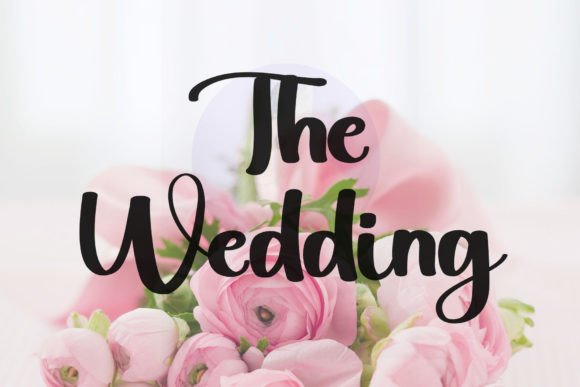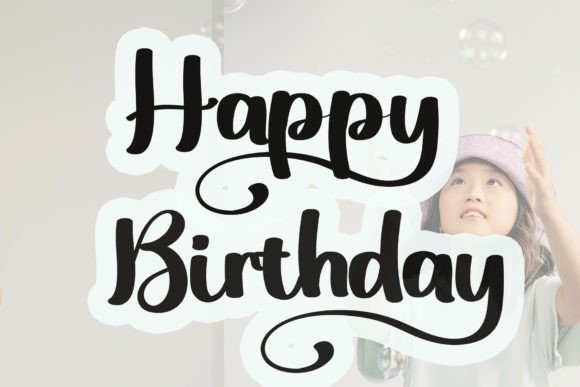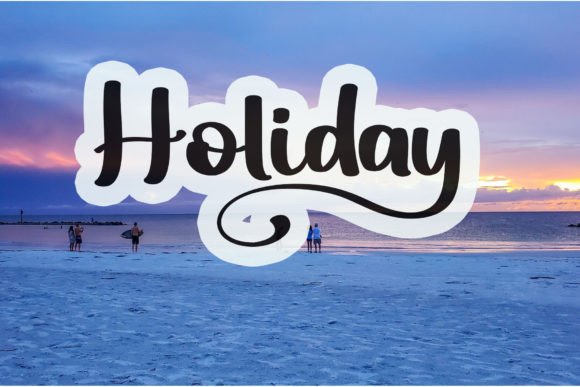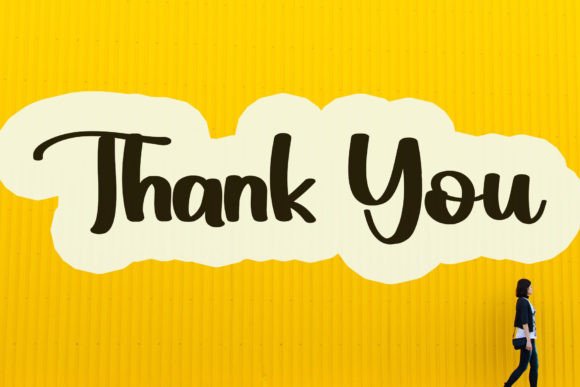
The Perfect Font for a Spring of Creativity
Do you remember the moment when a burst of creativity hits you, and you’re inspired to create something truly special? Maybe it was while sipping coffee on a sunny morning, or perhaps while brainstorming ideas with friends. Whatever the moment, it’s the spark that drives us to bring our ideas to life. For designers, this spark often comes in the form of the perfect font. Enter Bunny Font, a trendy handwritten font that exudes elegance and sophistication.
With its contemporary atmosphere and impeccable form, inspired by timeless classic calligraphy, Bunny Font is the perfect addition to any design project. Whether you’re creating a wedding invitation, a product label, or a social media graphic, this versatile font will add a touch of class and whimsy to your work. And for designers, that’s priceless.
Bunny Font Key Features
- Character Set: The font includes a comprehensive character set, covering Latin, Cyrillic, and Greek alphabets, as well as various symbols and punctuation marks.
- Unique Characteristics: Bunny Font features a unique, hand-drawn design with a playful and whimsical feel, making it ideal for children’s books, magazines, and other publications targeting a younger audience.
Bunny Font Review
As a designer, I was initially drawn to the Bunny Font due to its unique and whimsical aesthetic. ✨ The font’s playful design, complete with bunny-inspired details, is sure to add a touch of personality to any project. ✨ I particularly appreciate how well-suited it is for creating a fun and lighthearted atmosphere.
Some of the standout features of the Bunny Font include:
- Unique and customizable design options
- High-quality vector graphics
- Support for a wide range of languages
- Regular updates with new features and bug fixes
However, I do have some concerns regarding the font’s limitations. ⚠️ One of the main issues is that it may not be suitable for more serious or professional projects, as its playful nature may come across as unprofessional. ⚠️ Additionally, the font’s complexity can make it difficult to use in certain situations, such as in small text sizes or when paired with other fonts.
Overall, I would recommend the Bunny Font to designers looking to add a touch of whimsy to their projects. While it may have some limitations, its unique design and high-quality features make it a valuable addition to any designer’s toolkit.
The Bunny Font is a whimsical and playful font that is perfect for:
- Children’s book covers and illustrations
- Food and dessert branding
Some tips for getting the most out of the Bunny Font include:
- Using it in conjunction with bold or italic text for emphasis
- Pairing it with bright and playful colors
- Experimenting with different font sizes and styles to add visual interest
Alternatives to Bunny Font for Designers
Great Vibes Font is a modern, elegant script font suitable for creative and artistic designs. It’s perfect for use in advertising, branding, and packaging. Compared to Bunny Font, Great Vibes Font has a more refined and sophisticated look, making it ideal for high-end designs.
Dancing Script Font is a playful, handwritten font that’s great for adding a touch of whimsy to designs. It’s suitable for use in invitations, social media graphics, and blog posts. Unlike Bunny Font, Dancing Script Font has a more dynamic and expressive feel, making it perfect for designs that require a lot of personality.
Alex Brush Font is a beautiful, elegant script font that’s perfect for use in editorial and creative designs. It’s suitable for use in magazines, newspapers, and books. Compared to Bunny Font, Alex Brush Font has a more refined and sophisticated look, making it ideal for high-end designs that require a touch of elegance.
Q: What are the technical requirements for using the Bunny Font?